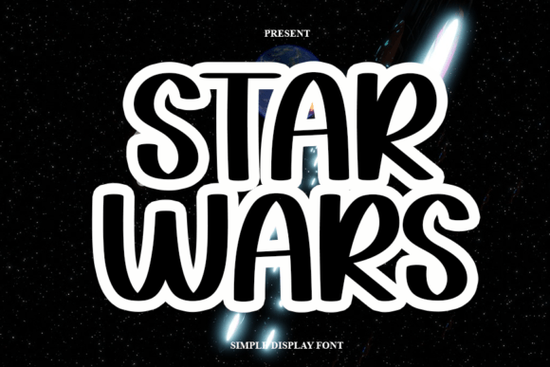
If you're looking for a script font that feels both nostalgic and fresh something with personality but still easy to read the Star Wars Font is worth considering. It’s not a licensed Star Wars typeface, but a clean, handwritten-style script inspired by classic calligraphy, with balanced stroke weight and subtle variation. Designers and crafters often choose it for projects where warmth and approachability matter think greeting cards, social media graphics, small-batch packaging, or even hand-lettered quotes for wall art.
What makes this font work well for real projects?
Unlike some script fonts that lean too delicate or overly dramatic, the Star Wars Font sits comfortably in the middle: not too thin, not too thick, with consistent spacing and clear letterforms. That means it holds up well at smaller sizes (like on product tags or labels) and scales nicely for larger displays (such as posters or Instagram story text). Its modern vibe comes from gentle contrast and natural flow not forced flourishes so it doesn’t feel dated or gimmicky.
It pairs especially well with sans-serif or minimalist display fonts when building layered layouts. For example, use it for a headline paired with a neutral body font like Inter or Open Sans. Or layer it over textured backgrounds kraft paper, linen, or soft watercolor scans without losing legibility.
Who uses this font and why?
Print-on-demand sellers appreciate how quickly it adds character to designs without needing custom illustration. A simple quote in Star Wars Font, centered on a vintage-style t-shirt mockup, can stand out in crowded marketplaces like Redbubble or Etsy. It works just as well for mugs, tote bags, or digital planners especially when the theme leans into storytelling, nostalgia, or personal expression.
Small business owners use it for branded elements like email headers, seasonal sale banners, or handwritten-style menu boards. Because it’s not overly ornate, it reads clearly on mobile screens and maintains tone across platforms. One café owner recently used it for their “Weekend Specials” chalkboard graphic paired with a clean serif for prices and reported more engagement than their previous all-capitals sans-serif version.
Crafters and hobbyists often combine it with other script fonts for contrast. Try pairing it with Love Twist Duo for a playful dual-tone effect, or layer it under Wedding Dream for elegant event invites. It also complements rustic themes think farmhouse signs or wedding signage when used alongside Farmhouse Font.
How does it compare to similar options?
Compared to Sketchy Gossip, which has looser, more irregular energy, Star Wars Font feels more controlled and polished ideal if your project needs consistency across multiple lines of text. It’s less formal than Wedding Dream, so it fits casual or contemporary contexts better. And unlike many trending “brush script” fonts, it doesn’t rely on heavy texture overlays to feel authentic it stands on its own.
- Check the character set this font includes standard Latin letters, numbers, and basic punctuation. It doesn’t support extended diacritics or multilingual characters.
- Test spacing in your layout software. Some script fonts need manual kerning adjustments between certain letter pairs (like “r” + “a” or “f” + “l”).
- Use it for short phrases first headlines, quotes, or names rather than long paragraphs. Like most script fonts, readability drops after ~2–3 lines of continuous text.
Before adding Star Wars Font to your next project, try sketching out three versions: one with tight line spacing and minimal decoration, one with light shadow or offset for depth, and one with a single accent word in a contrasting font like Love Twist Duo. See which feels most true to your message and go with that.